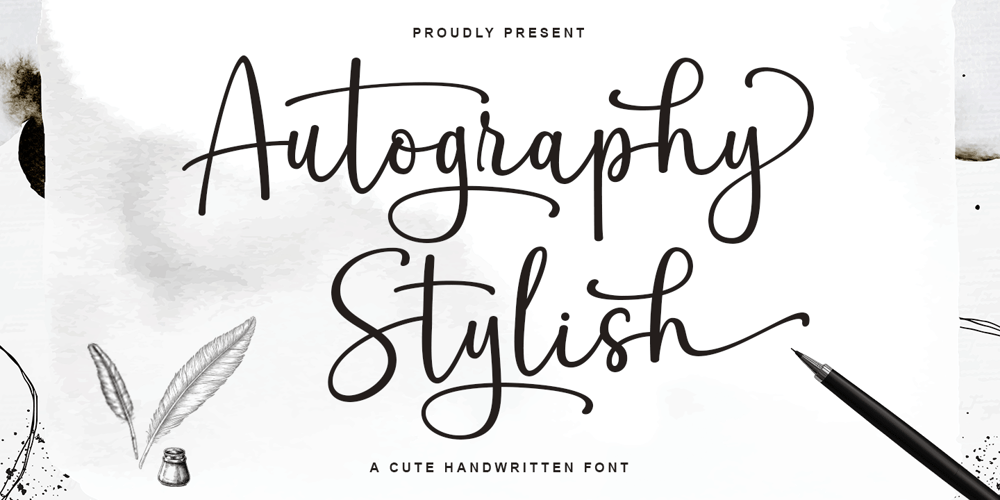
Autography Stylish
Autography Stylish font
Autography Stylish Font Family was designed by Sidiq Fahmi and published by Rotterlab Studio. Autography Stylish contains 1 styles and family package options. Introducing Autography Stylish – Casual Script Font Autography Stylish is a natural handwritten font, it is perfect for logos, invitations, stationery, wedding designs, social media posts, advertisements, product packaging, product designs, labels, photography, watermarks, special events, or anything else.Autography Stylish comes with a full set of uppercase and lowercase letters, initial & final lowercase letters, multilingual symbols, numbers, punctuation.If you have any questions, feel free to message me 🙂 Thank you,Rotterlab Studio